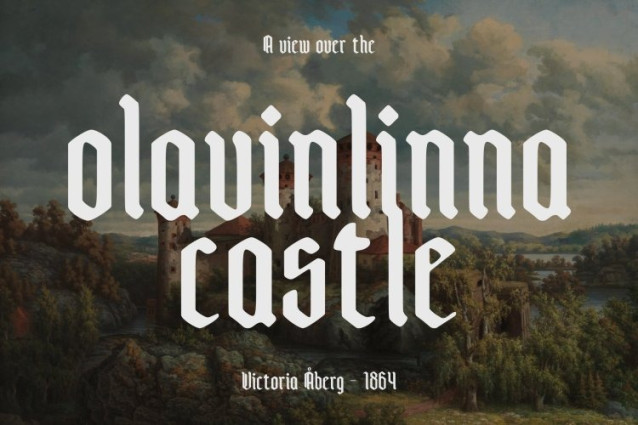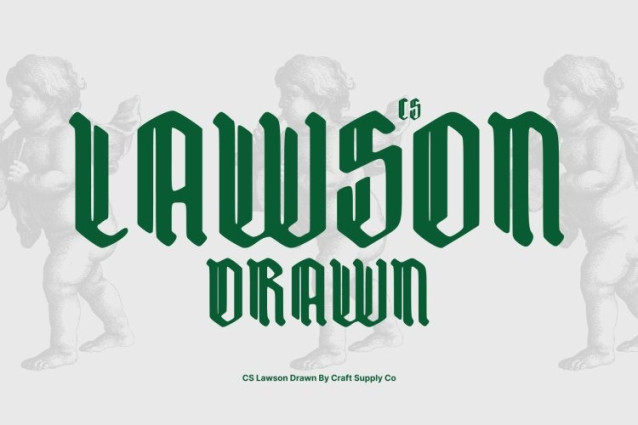
CS Lawson Drawn Font
CS Lawson Drawn Font This is a display font crafted in a timeless Gothic style, showcasing sharp, decorative lines that echo traditional medieval typography. Its distinct contours and dramatic presence bring a sense of history and bold elegance to every composition, making it a striking choice for designers seeking a classic yet commanding aesthetic.
Hand-Drawn Texture for Artistic Personality
The hand-drawn effect elevates this Gothic structure with expressive, handmade texture. Each letter carries subtle imperfections and artistic strokes that add warmth, depth, and individuality. This handcrafted finish transforms the sharp Gothic form into something more organic, lively, and visually captivating perfect for projects that value personality as much as structure.
Ideal for Historical and Dramatic Design Themes
This font shines in designs that embrace heritage, drama, and storytelling. From historical posters to expressive book titles or editorial layouts, it delivers an immersive atmosphere that feels both authentic and artistically enhanced. Its Gothic foundation conveys strength and tradition, while the drawn texture softens and enriches the overall tone.
Powerful Choice for Branding and Display Work
For branding, promotional materials, or themed visual identities, this font offers striking impact and memorable character. Its combination of decorative Gothic lines and handcrafted texture ensures that every design stands out with a unique, expressive edge.